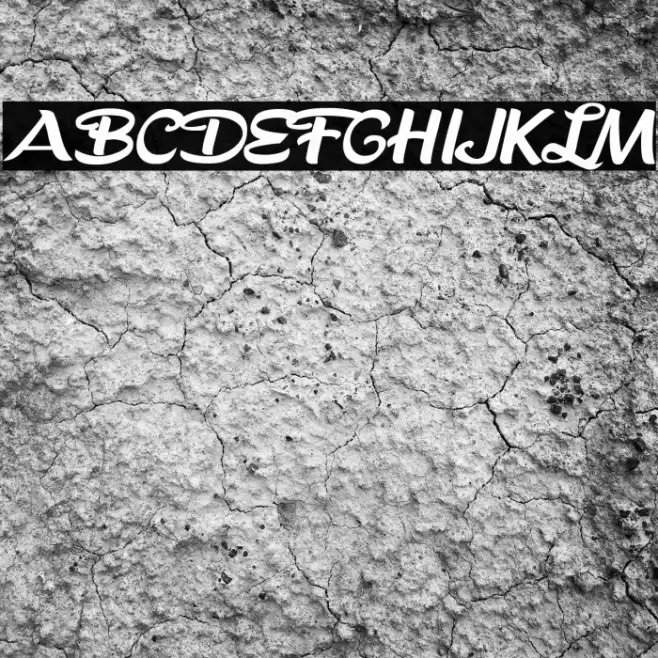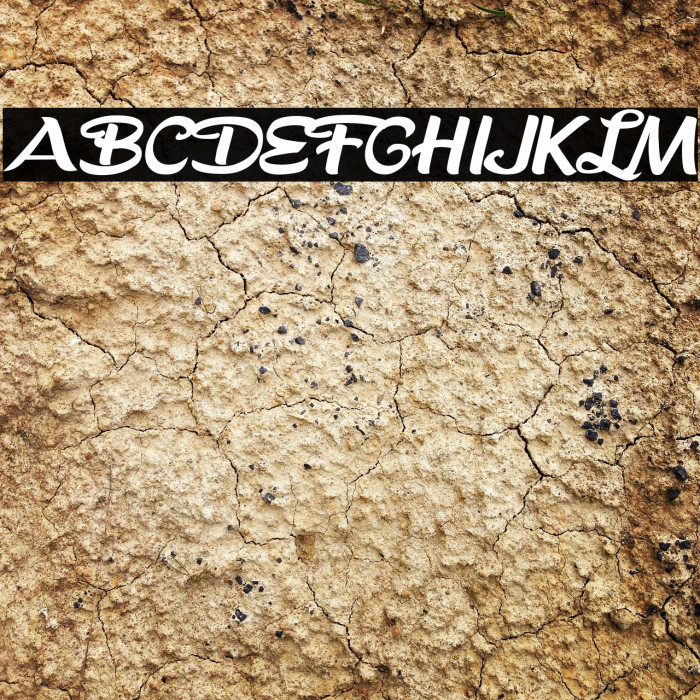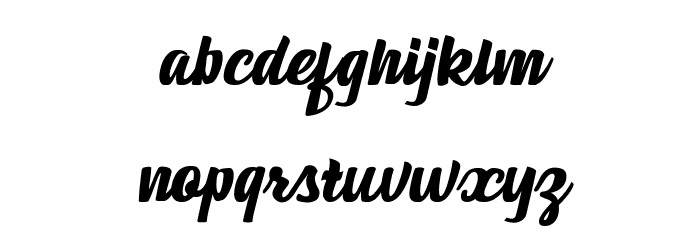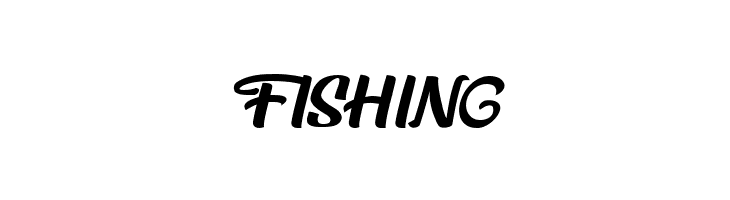
Salsa Parrilla Personal Use Regular Font
Salsa Parrilla Personal Use Regular Description
This font features a dynamic and flowing script style, characterized by its bold and expressive strokes. The uppercase letters exhibit a sense of movement with their sweeping curves and elegant flourishes, while the lowercase letters maintain a consistent rhythm with a slightly more compact form. The numerals are designed to complement the overall aesthetic, offering a harmonious blend of style and readability. Special characters are crafted with the same attention to detail, ensuring they integrate seamlessly with the rest of the typeface. This font exudes a sense of creativity and flair, making it ideal for projects that require a touch of personality and artistic expression.
A bold, flowing script font with expressive strokes and elegant flourishes from Script fonts.
- Proposed Projects: Ideal for branding, invitations, greeting cards, and creative projects that require a personal touch.
- Use Case: Logos, Headlines, Invitations